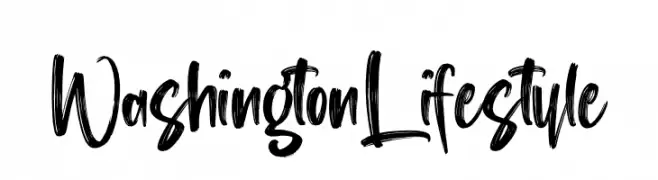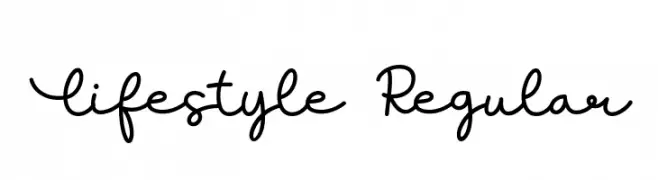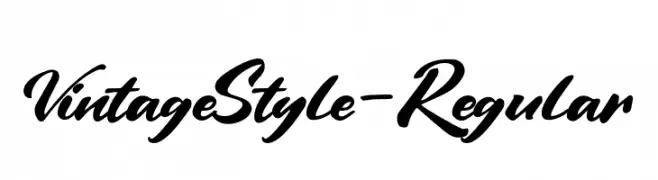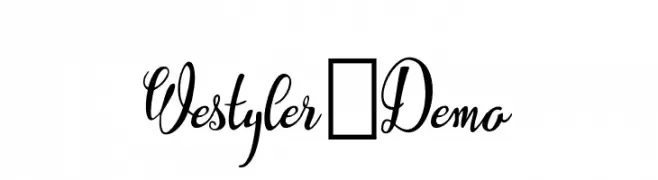
A bold, brush-style font with dynamic, hand-painted strokes.
A dynamic, cursive font with fluid, handwritten strokes.
A casual, handwritten script with a smooth, flowing style.
A bold, vintage-style script font with elegant curves and high contrast.
A flowing, cursive font with elegant, interconnected strokes and calligraphic flair.